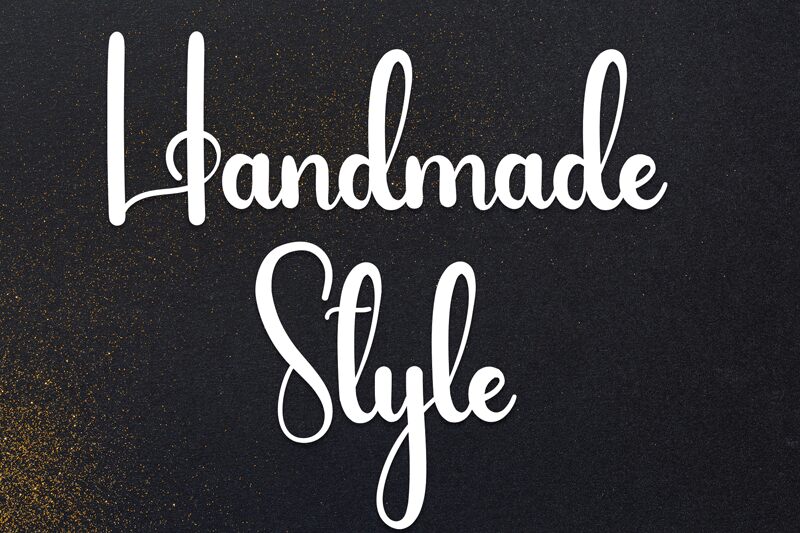
Handmade Style
Handmade Style font by Andi Moz is a condensed, handwritten typeface that embodies elegance and casual sophistication. Its flowing script features modern calligraphy influences, with decorative elements that create a cohesive and expressive design. The font captures an elegant yet approachable feel with its delicate and artistic approach.